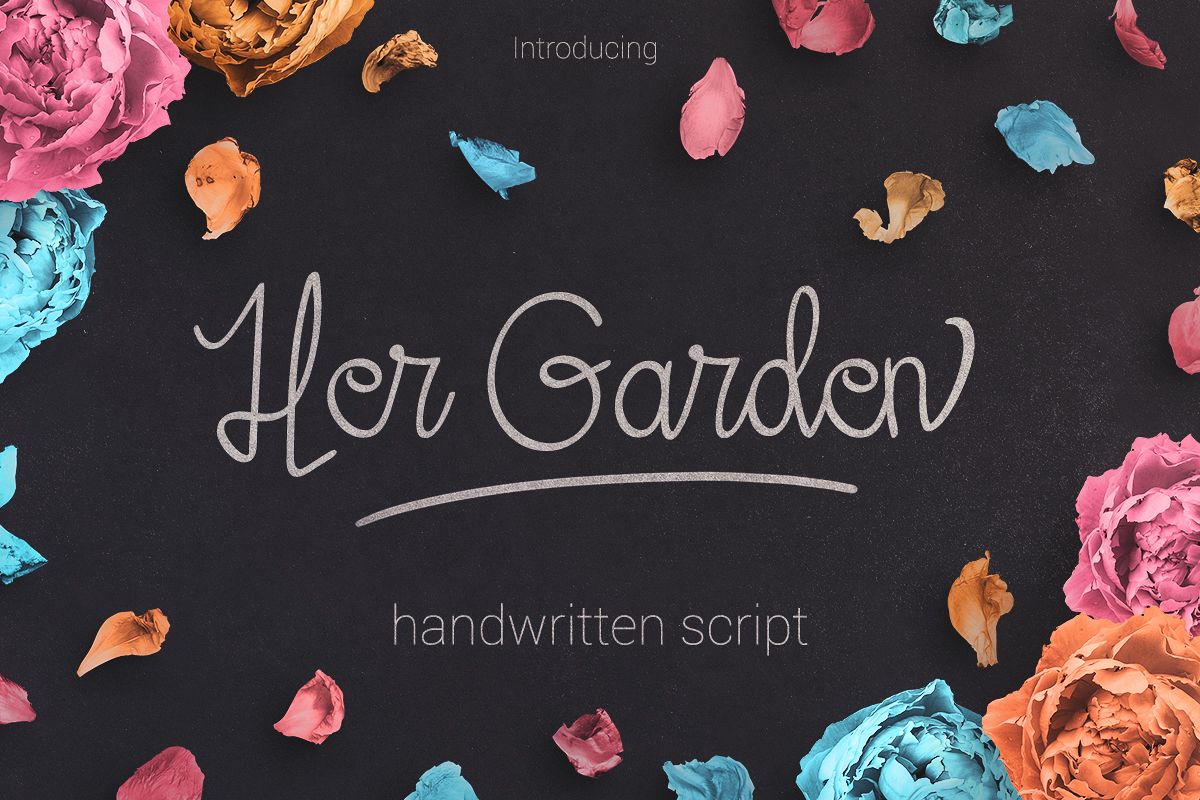
Her Garden
Her Garden is handwritten script font . Her Garden has beautiful curves and includes some additional swash. This font is great for lettering, signature, branding, logotype, magazine, poster, and other design project.
- Standard Symbol
- Multilingual Support  ÀÁÂÃÅÄÆÇÈÉÊËÌÍÎÏÑÒÓÔÕÖŒØÙÚÛÜŠÝŸ
- Standard Ligatures